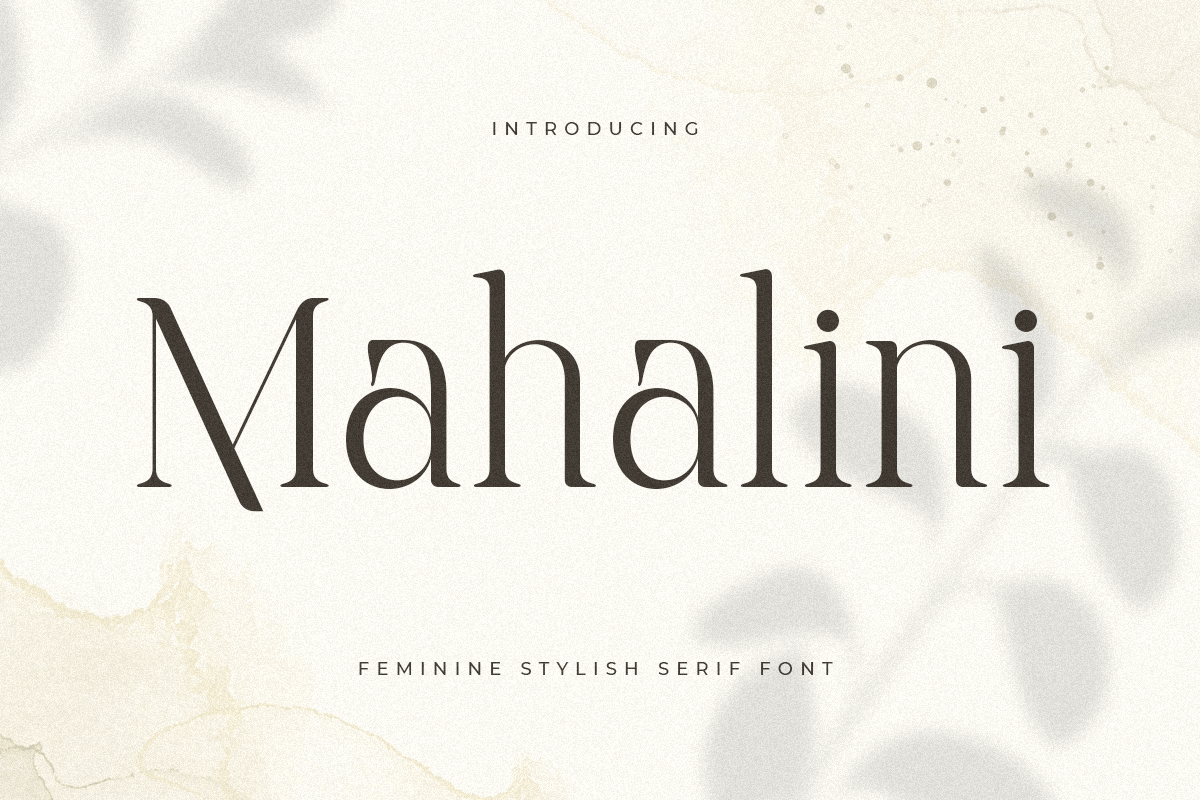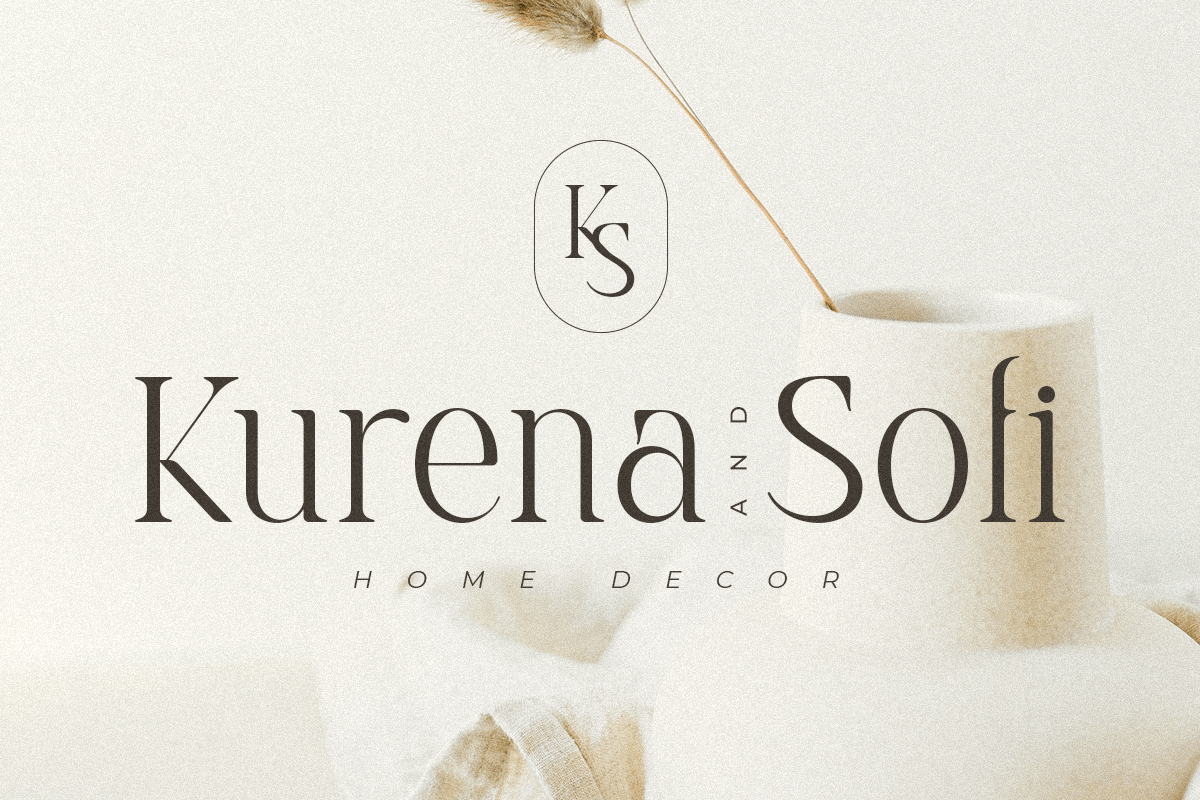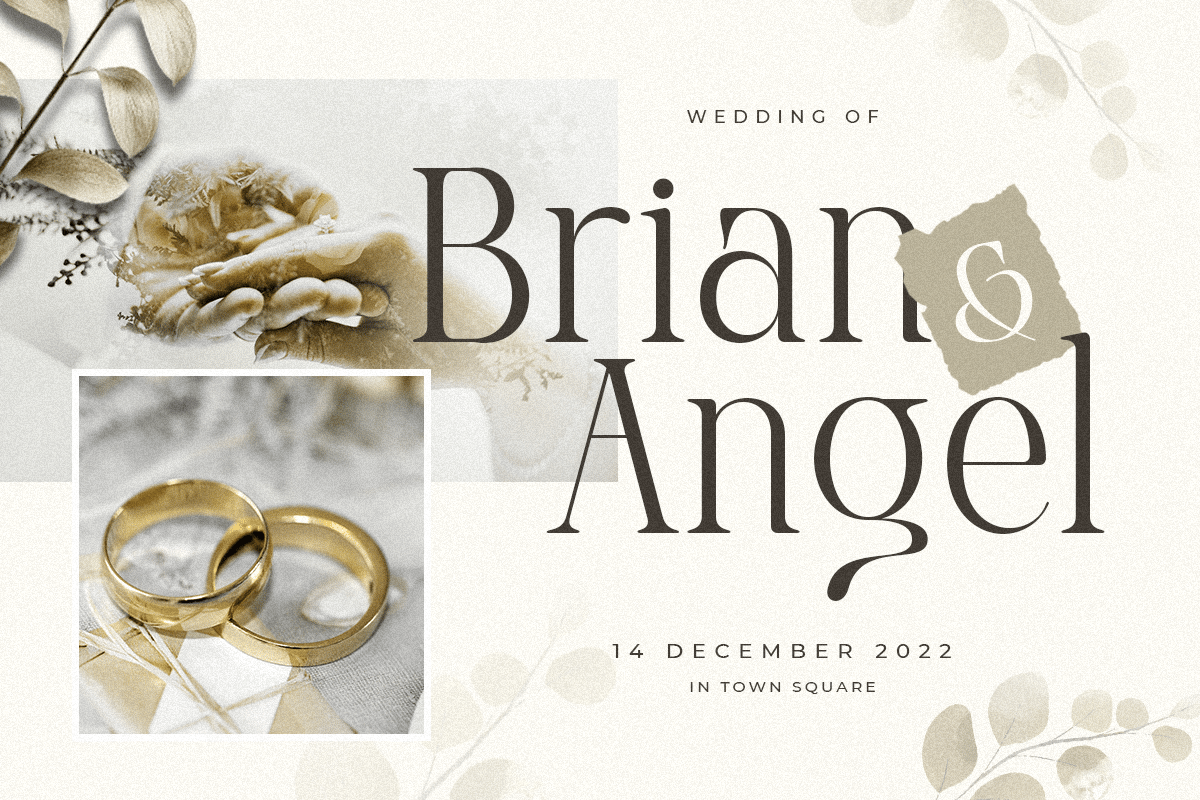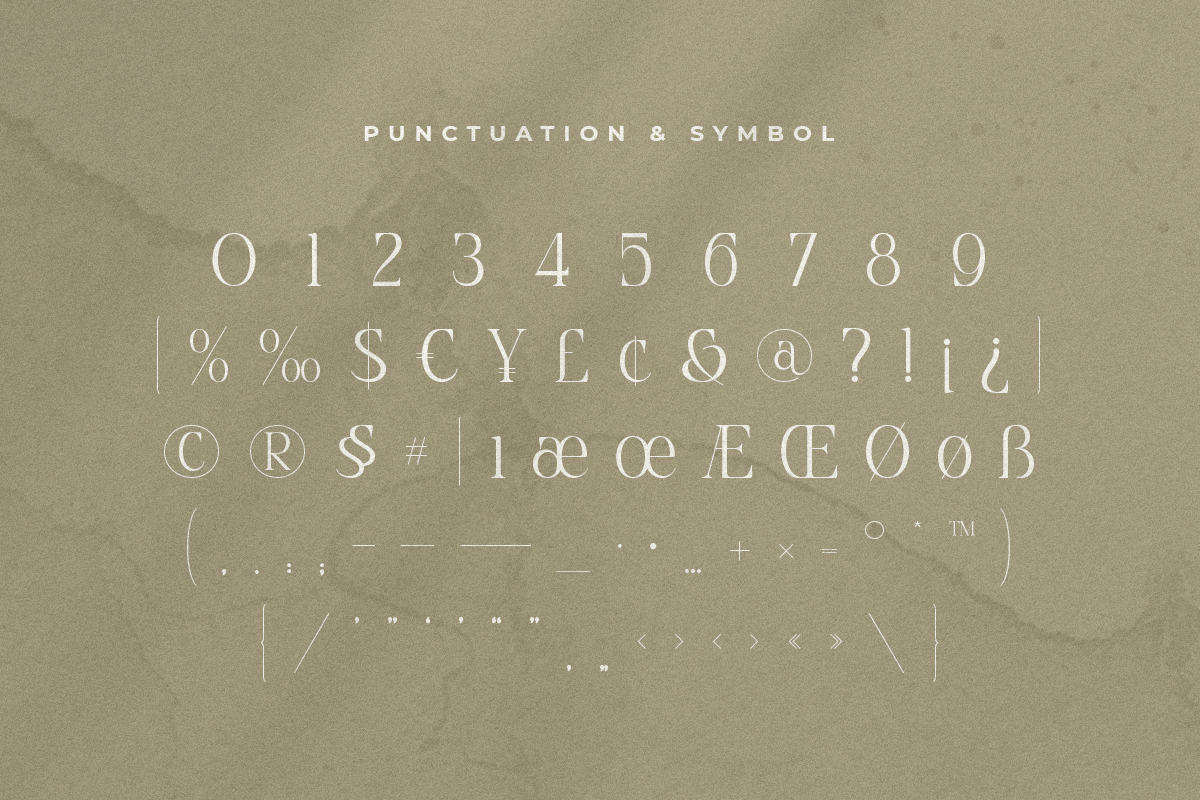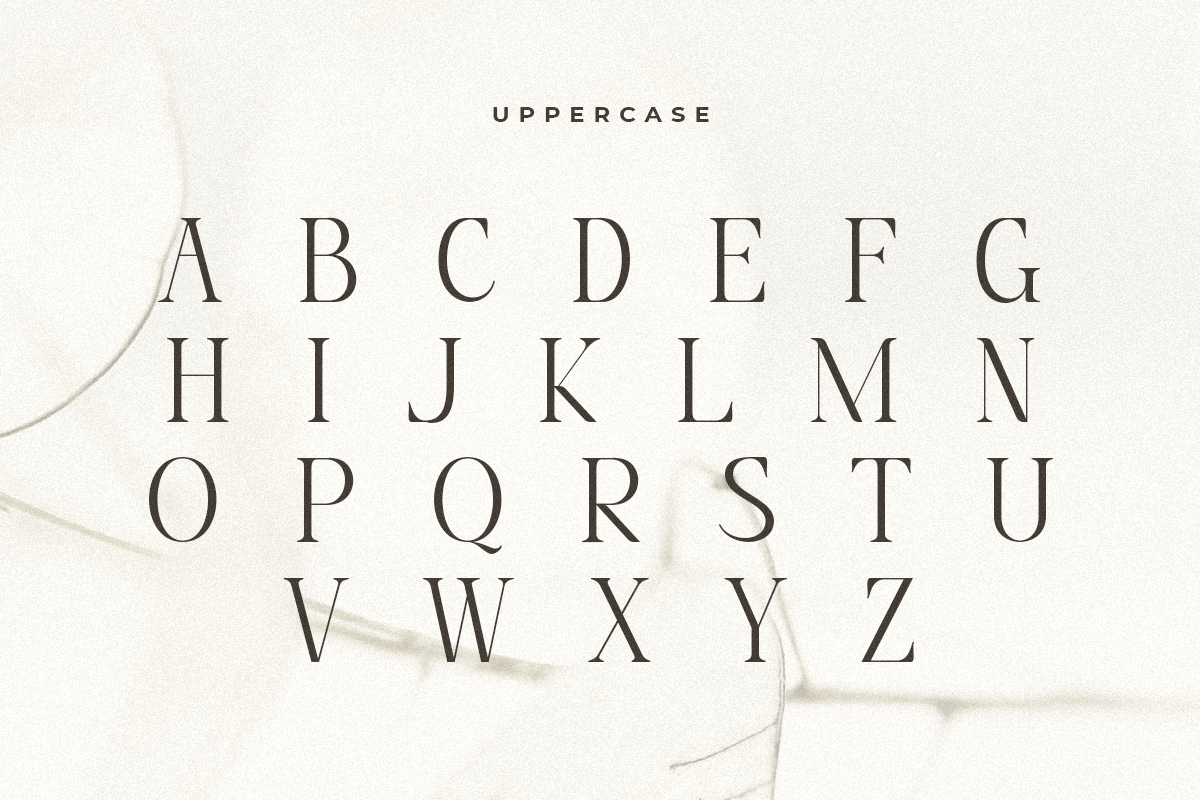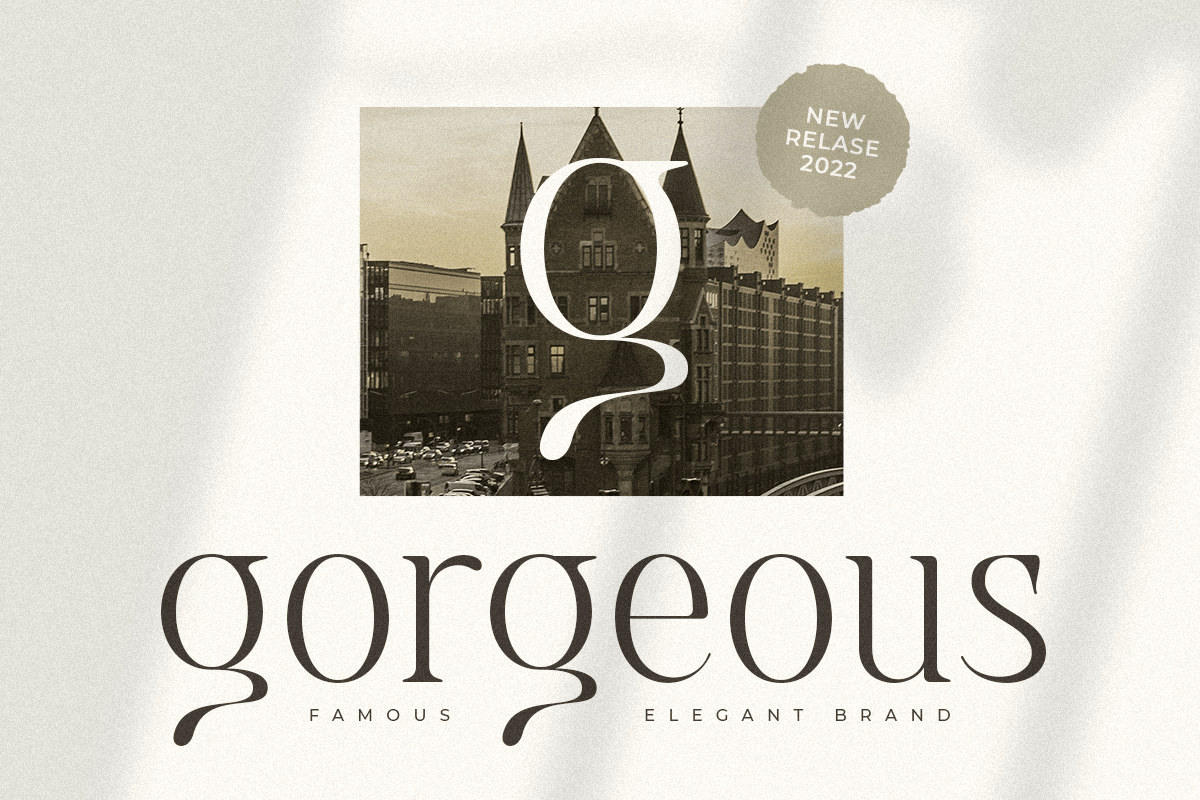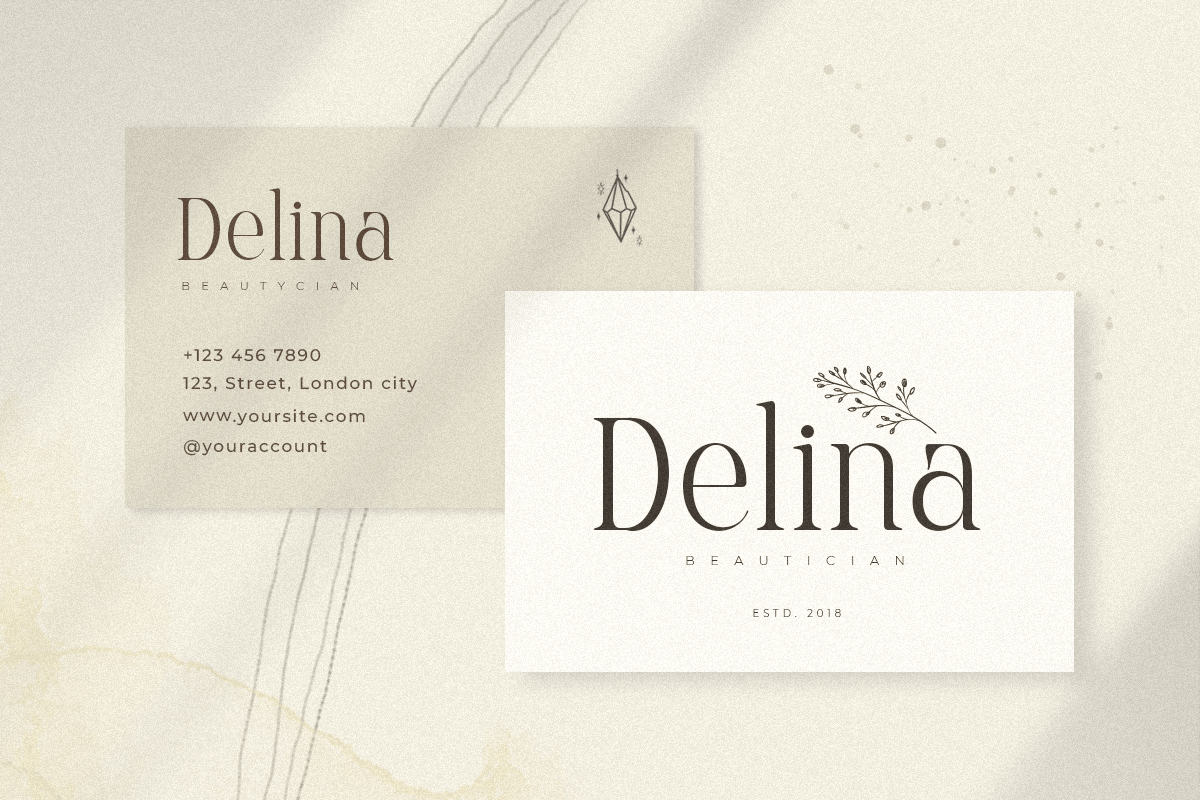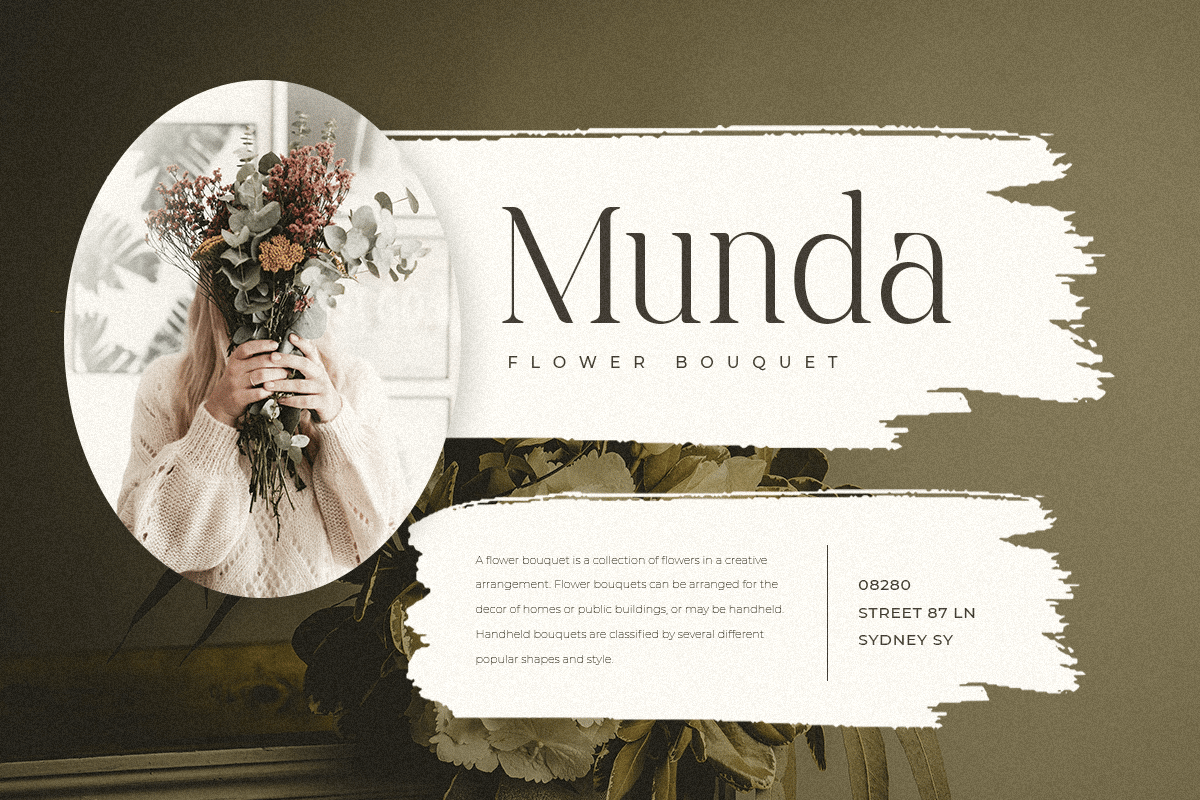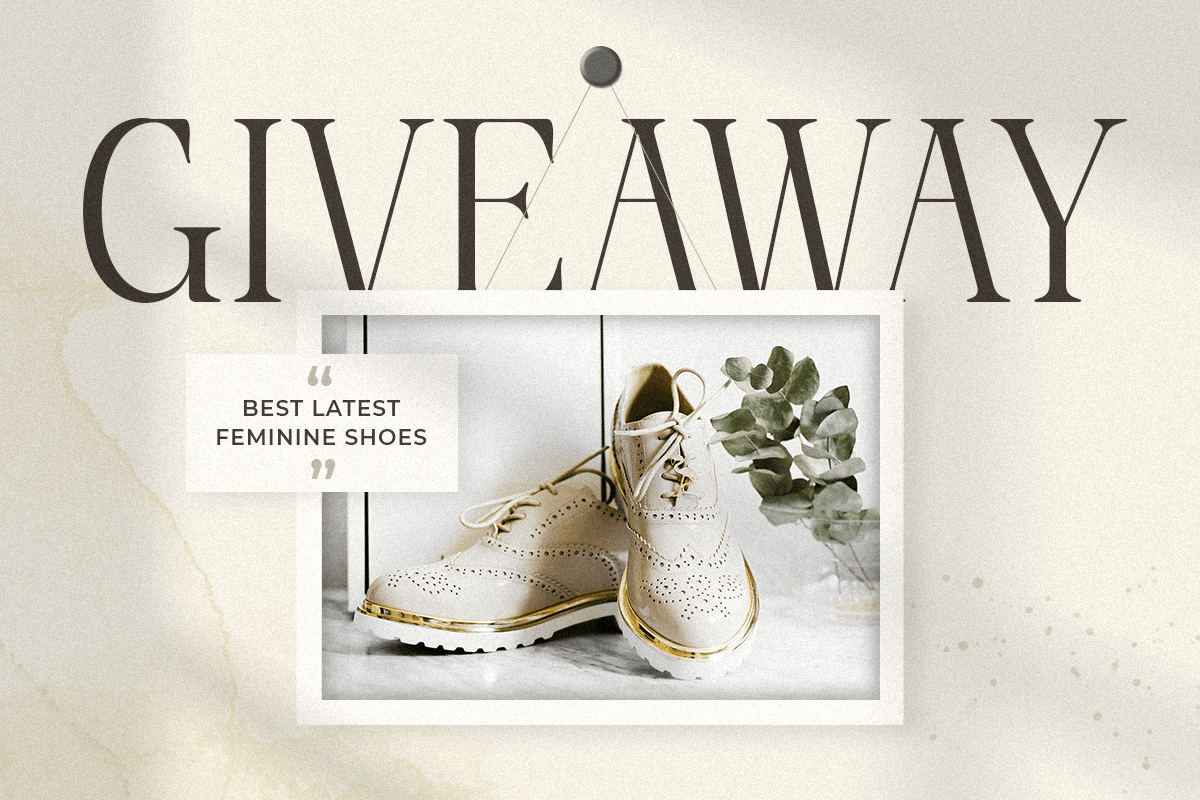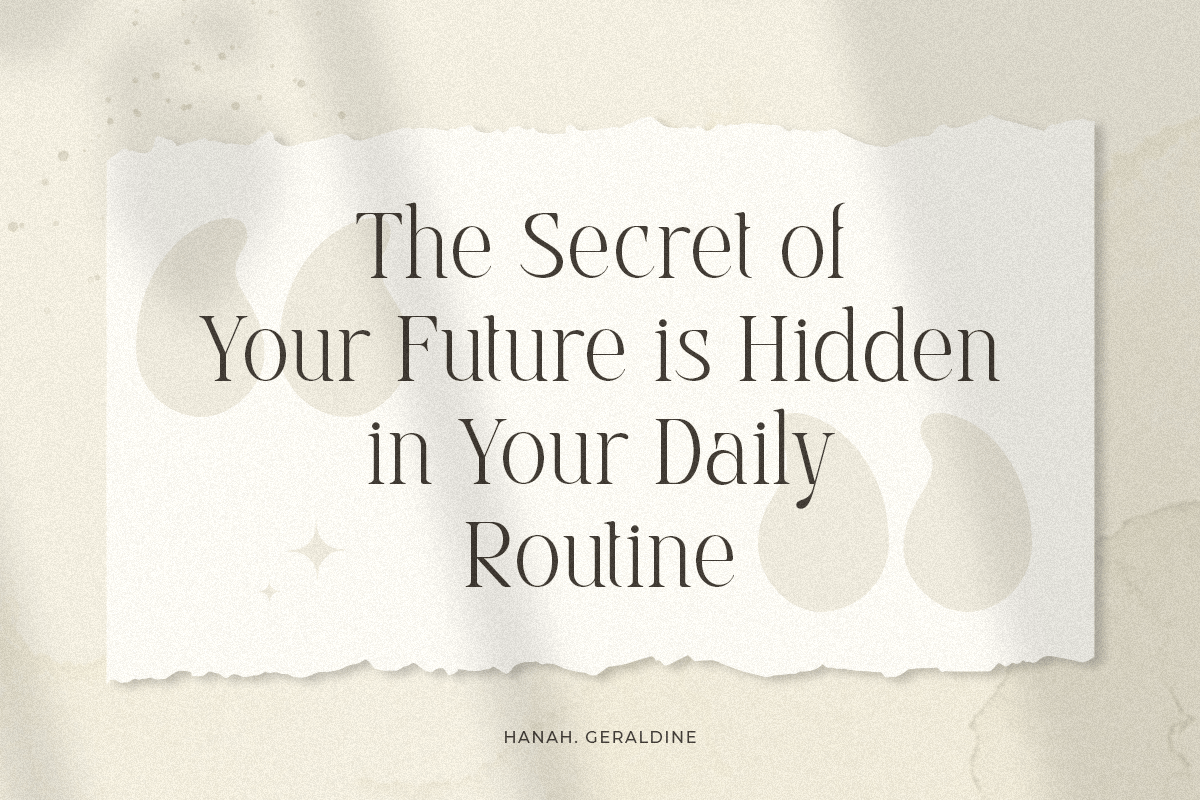
Mahalini – Feminine Stylish Serif Font
A Serif font that we created special for elegant branding needs, with extra unique shape will be ready to add value of your brand. It so nice to leverage designer or product owner that need solutions to make their design look more classy and modern. And specially for this font, We prepared any characters to help you create unlimited variations for your creative needs.
- Any characters to get creative variations
- Ready with Lowercase and Uppercase characters